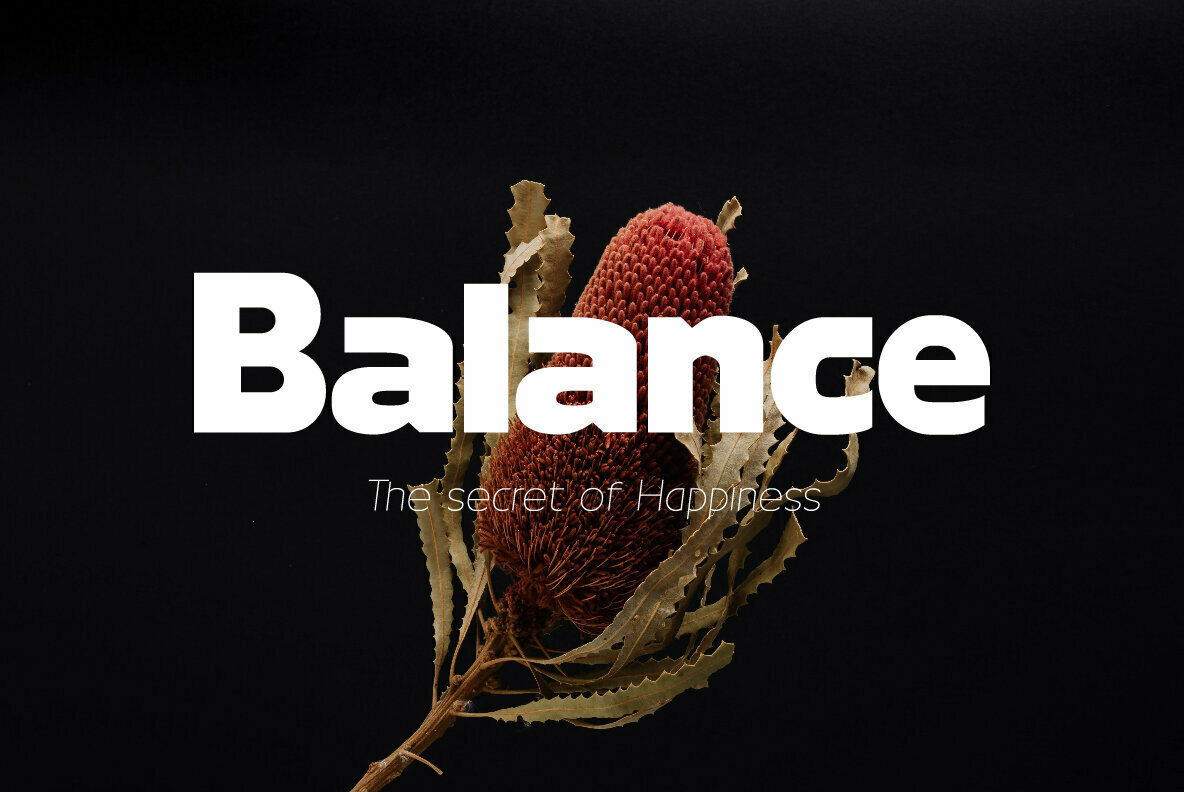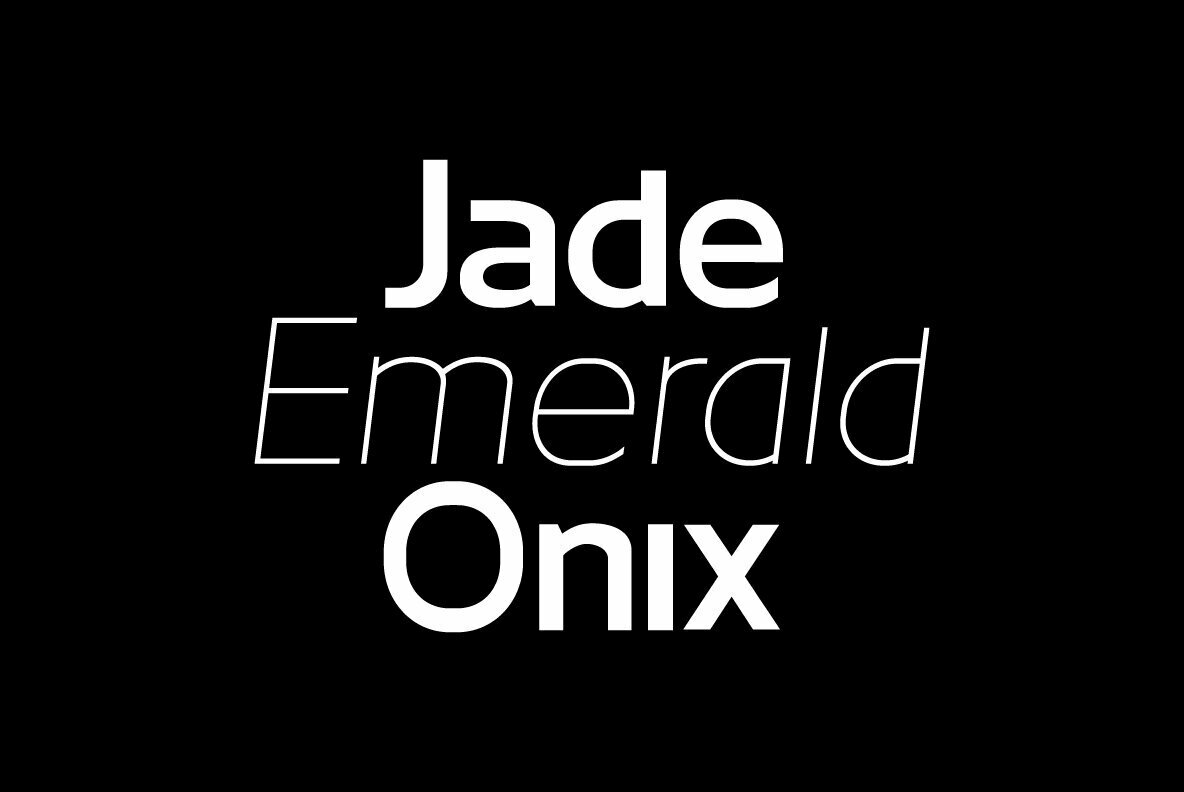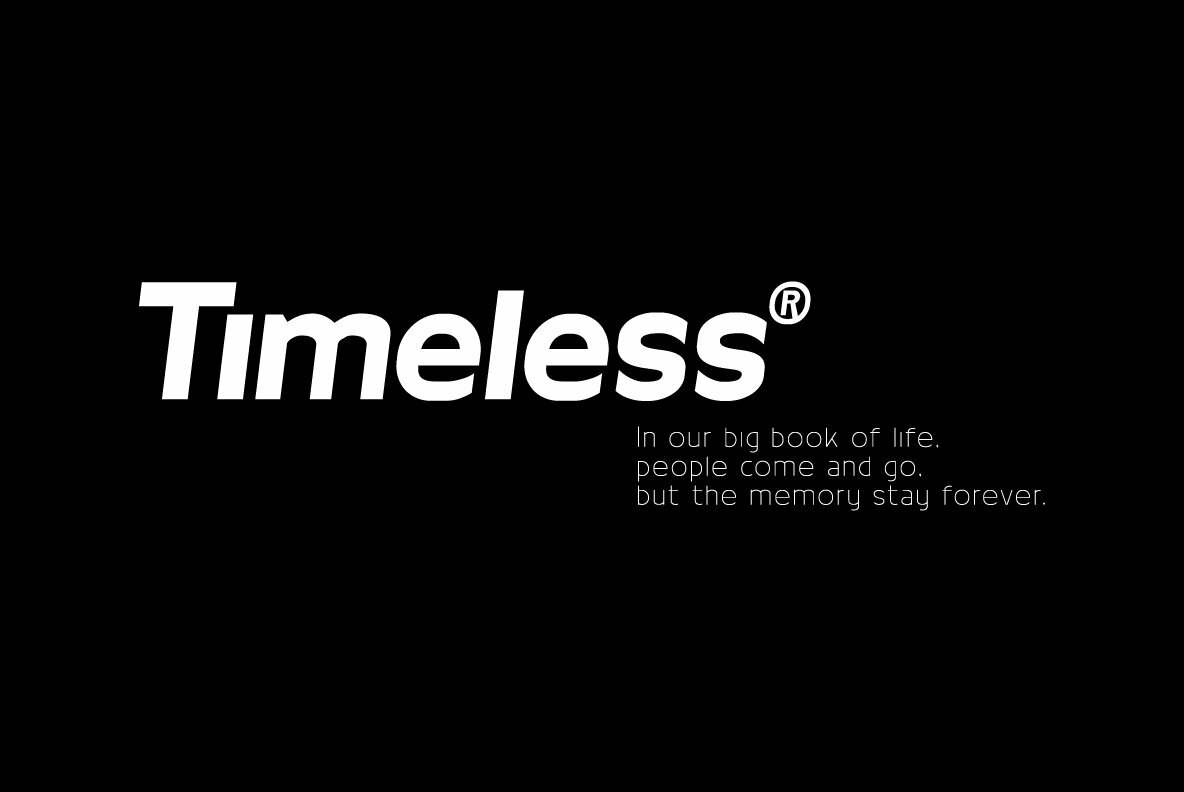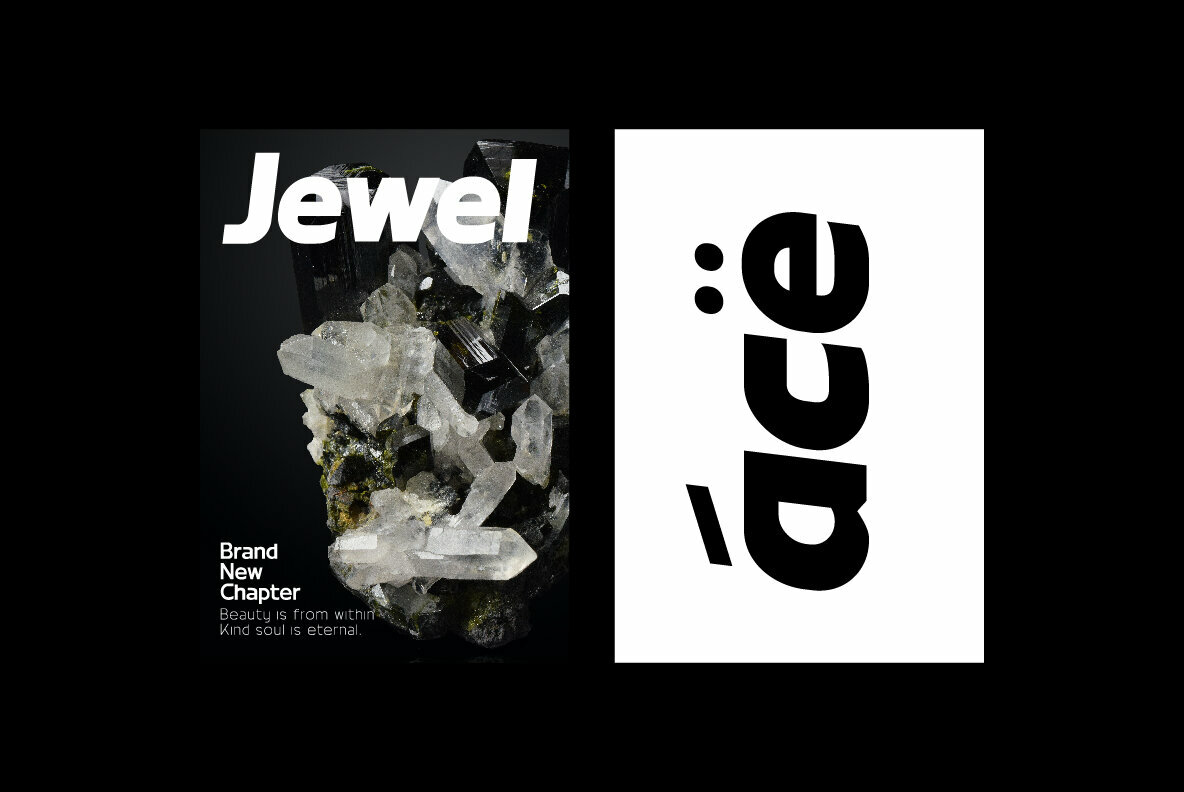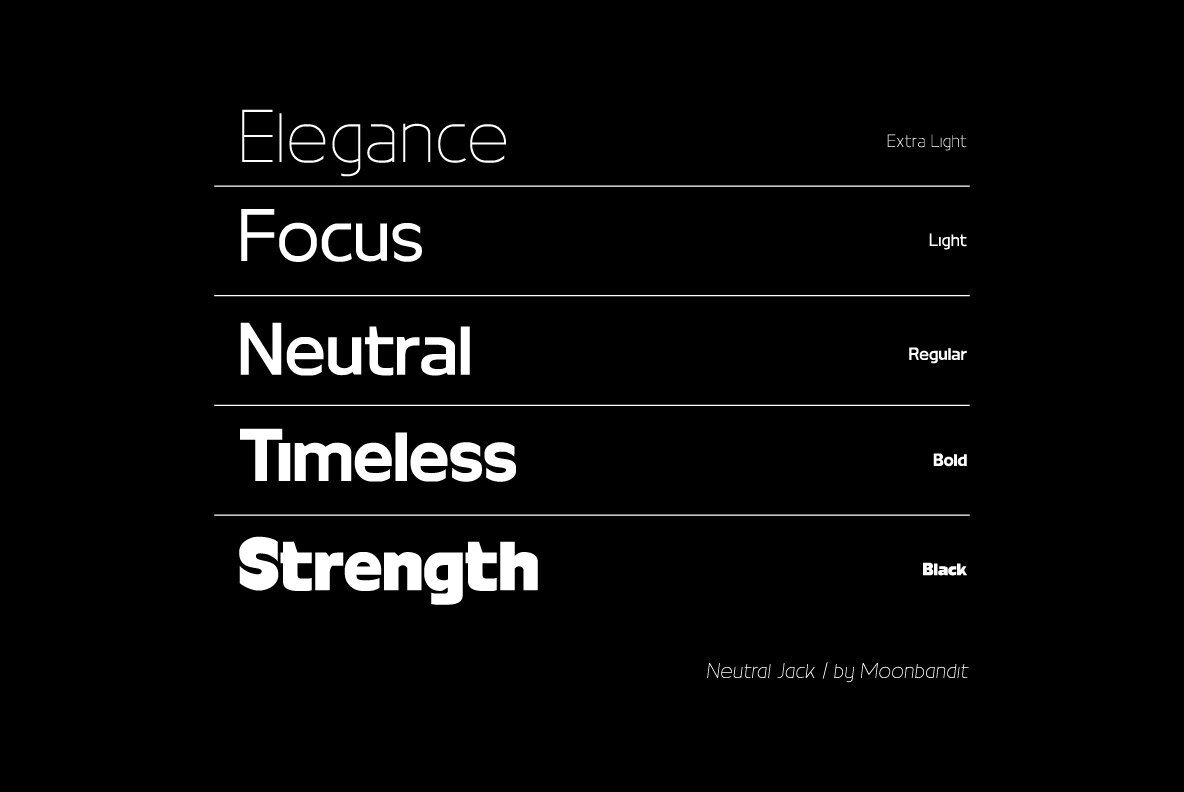
Neutral Jack: Diverse and Modern Typeface
The Neutral Jack font family offers a remarkable range of typographic solutions, ensuring your projects are imbued with both power and versatility. Comprising ten distinct fonts, this collection spans from extra light, which exudes an elegant sophistication, to black, perfect for making a bold statement.
Features of Neutral Jack
• Varied Weights – Ten styles ranging from extra light to black.
• Modern Aesthetic – Suitable for contemporary design needs.
• Versatile Usage – Ideal for branding, editorial, and web design projects.